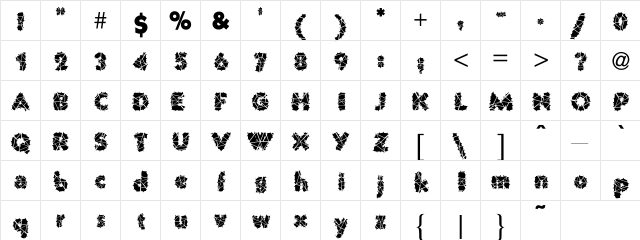
Prison Wire 1 Regular
Design Context for Prison Wire 1 Typeface
Prison Wire 1 is a composed and adaptable typeface that performs quietly and consistently across a wide range of design contexts.
Pro Tip: Use Prison Wire 1 in both headline and body roles to test its range before committing to a single application.